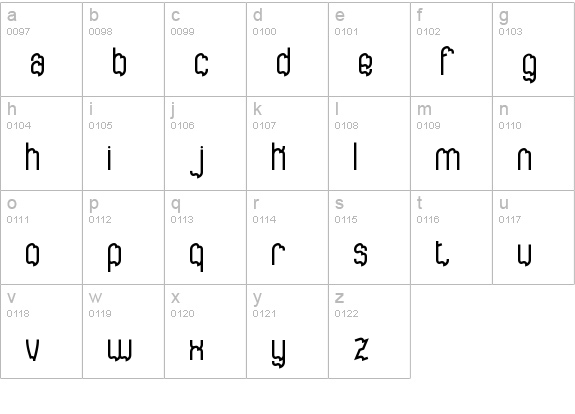
Discordance BRK Font Details
Discordance BRK font is a unique and eye-catching display typeface that is sure to make your designs stand out. With its edgy and modern style, this font is perfect for adding a touch of creativity to your projects. The sharp angles and bold lines of Discordance BRK create a sense of energy and excitement, making it ideal for posters, logos, and other graphic design applications. What's even better is that Discordance BRK font is completely free to download at FontsMarket.com. That's right, you can easily access this stunning font at no cost, allowing you to add a dynamic element to your designs without breaking the bank. So why wait? Head over to FontsMarket.com today and unleash the power of Discordance BRK font in your next project.